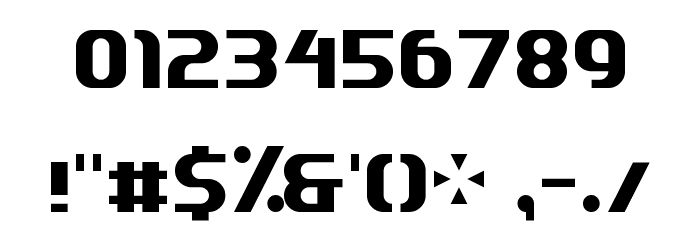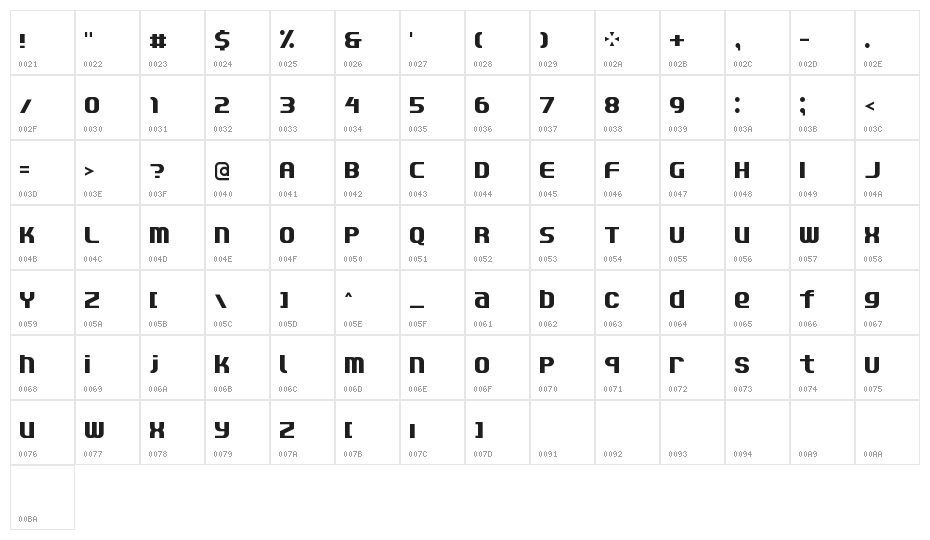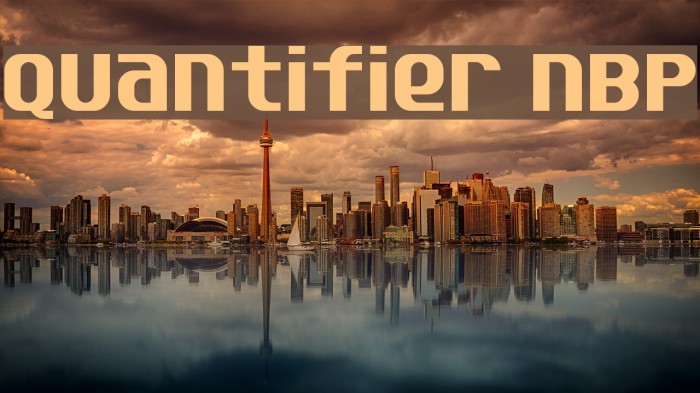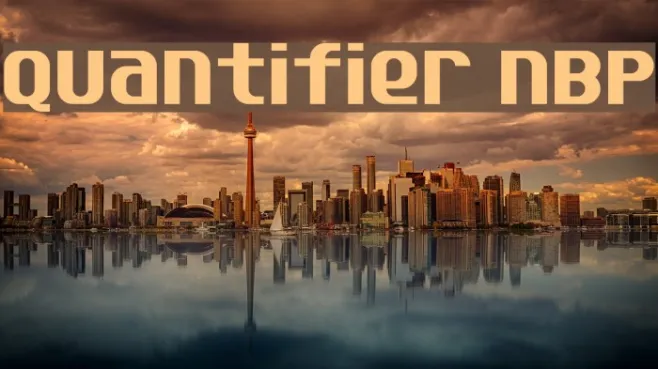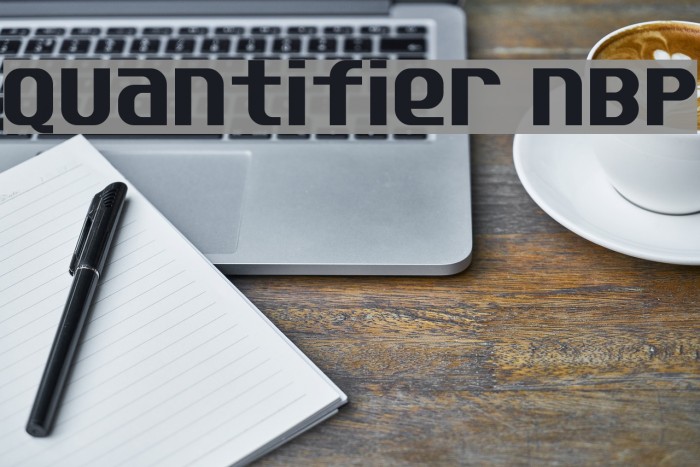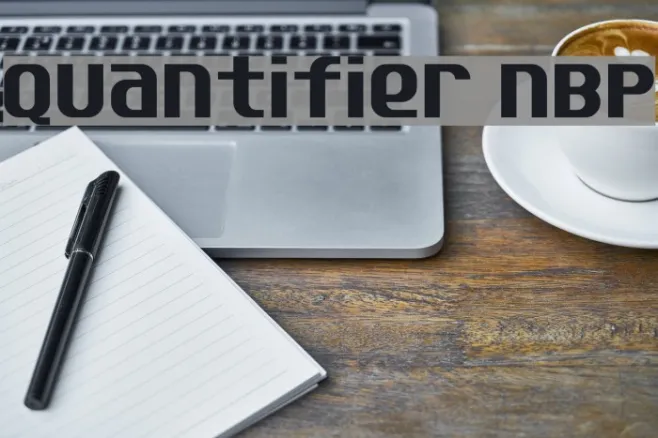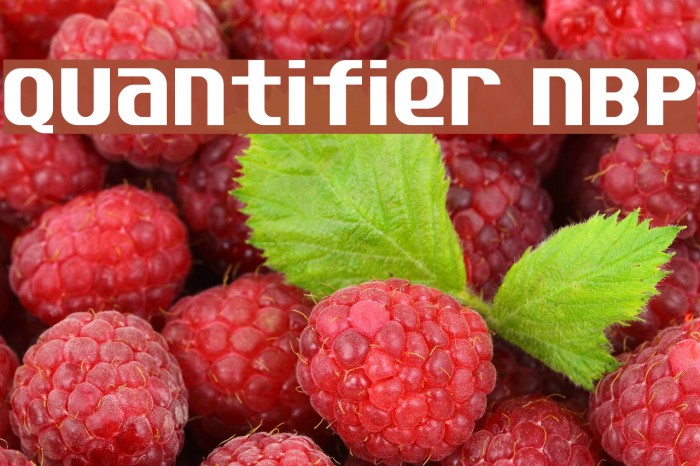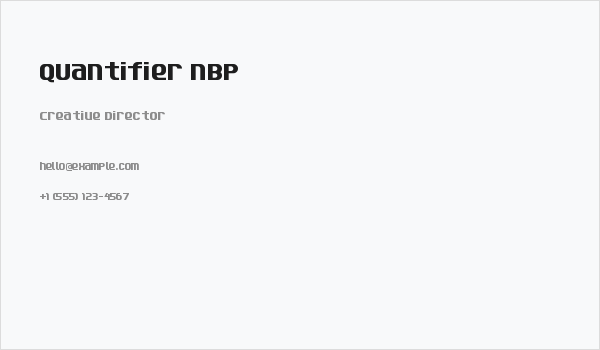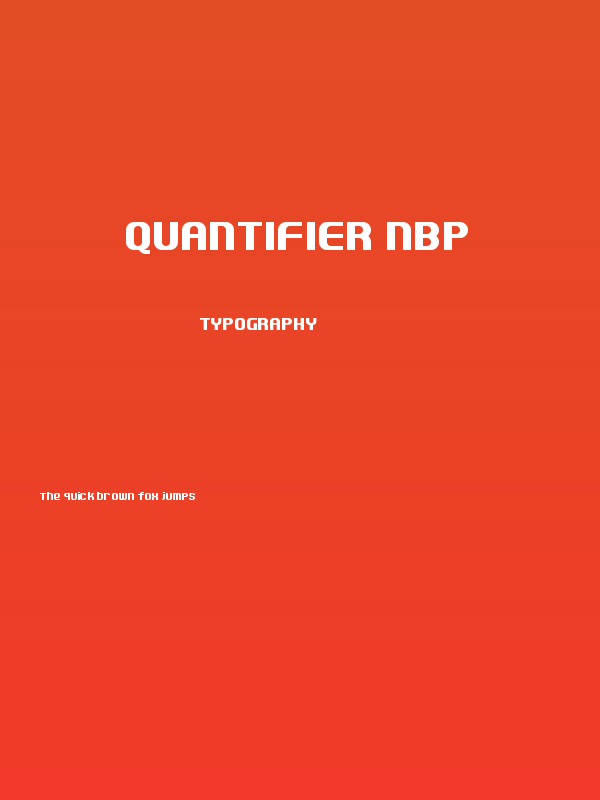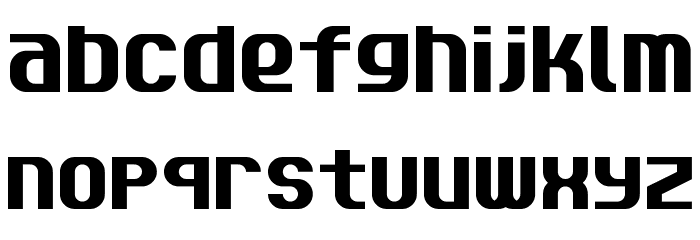
Quantifier NBP Font
Quantifier NBP Description
This font features a bold and modern design with a geometric structure. The characters have a uniform stroke width, contributing to a clean and cohesive appearance. The uppercase letters are strong and assertive, while the lowercase letters maintain a consistent style that complements the uppercase. The numerals are clear and easy to read, making them suitable for various applications. Special characters are well-defined, adding versatility to the font. The overall design is contemporary, making it ideal for projects that require a modern and impactful look.
| Proposed Projects | Ideal for branding, advertising, posters, and digital media where a modern and bold statement is needed. |